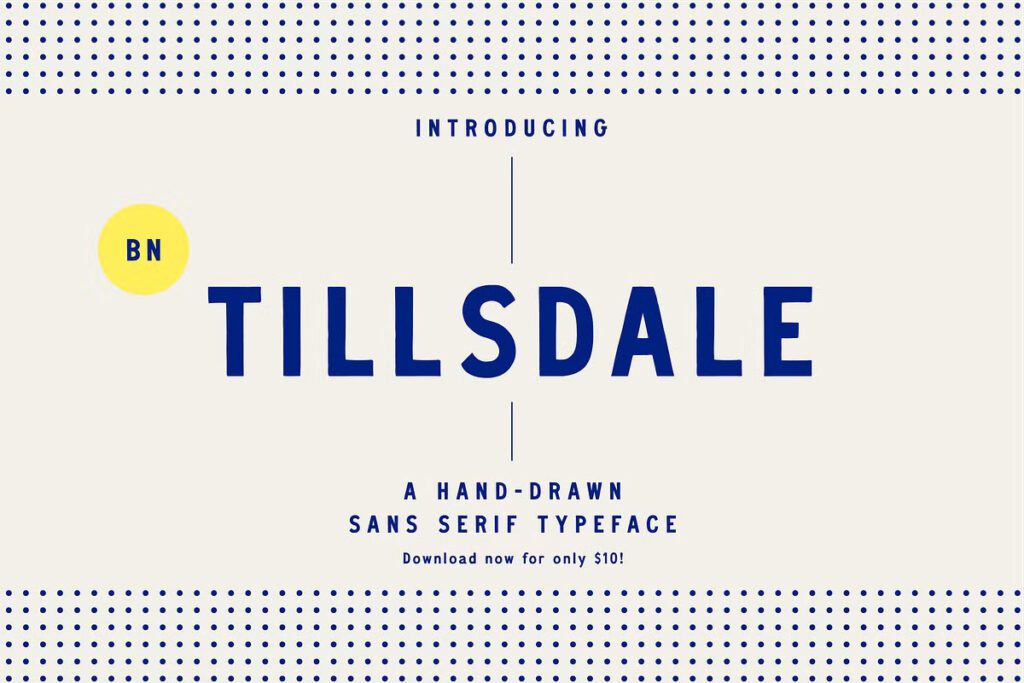
BN Tillsdale: The Hand-Drawn Font Family for Versatile Designs
If you’re in search of a font that strikes a balance between hand-drawn charm and modern versatility, BN Tillsdale is the font family for you. This unique sans-serif typeface comes in three distinct weights—light, regular, and bold—giving you endless possibilities for creating stunning designs that feel both fresh and quirky.
What is BN Tillsdale?
BN Tillsdale is a hand-drawn sans-serif typeface designed with a semi-condensed form, making it a well-balanced and versatile choice for a variety of graphic design projects. Whether you’re designing a display layout, creating a unique logo, or developing long-form content, BN Tillsdale’s playful, hand-drawn quality brings warmth and personality to any project.
Key Features of BN Tillsdale
Three Versatile Weights:BN Tillsdale offers three weights—light, regular, and bold—giving you the flexibility to match the perfect weight to your design needs. Whether it’s a delicate title or a bold headline, this font family has you covered.
Hand-Drawn Aesthetic:The hand-drawn style of BN Tillsdale adds a personal and quirky touch to your designs, making it perfect for brands that want to convey a more approachable and creative vibe.
Semi-Condensed Form:The well-balanced, semi-condensed form ensures that your text is easy to read while maintaining a unique and stylish look, making it ideal for both display and long-form content.
Perfect for Graphic Design:BN Tillsdale is suited for a wide range of graphic design applications, from logos and branding to editorial layouts and websites. Its versatility ensures that it fits seamlessly into any project.
Limited Foreign Characters:Please note that BN Tillsdale currently does not support foreign accents or characters, but its clean and functional design works well for English-language projects.
How to Use BN Tillsdale in Your Designs
Logo Design:With its hand-drawn charm and semi-condensed structure, BN Tillsdale can help create quirky and memorable logos for brands looking to stand out.
Display Layouts:Use BN Tillsdale’s light or regular weight for eye-catching display titles or banners that need a playful yet professional touch.
Content Creation:Its readability makes BN Tillsdale perfect for long-form content such as blogs, magazines, or books, allowing you to maintain a personal touch without sacrificing clarity.
Why Choose BN Tillsdale?
Unique Hand-Drawn Look: BN Tillsdale adds a creative flair to your designs with its hand-drawn aesthetic, making it a great choice for projects that require a human touch.
Flexibility Across Projects: With its three distinct weights, BN Tillsdale provides enough variety for all your design needs, from bold headlines to subtle text.
Versatility: Whether you’re working on print or digital designs, BN Tillsdale’s flexibility makes it perfect for branding, logos, editorial layouts, and more.